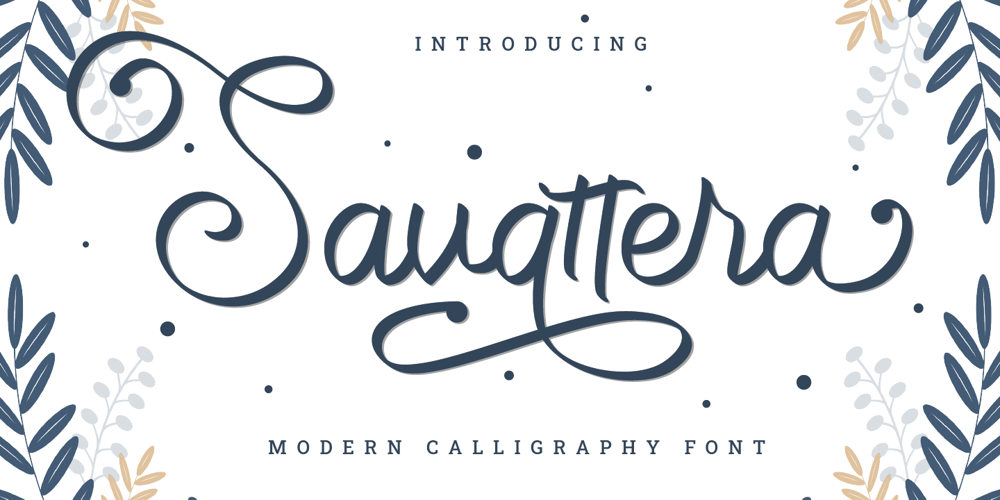
Savattera Font Family was designed by Prio Nurokhim Aji and published by Prioritype. Savattera contains 1 styles and family package options. Introducing a new script font with a beautiful, uniquely elegant and very charming look, you can click it and can be used in your projects such as wedding invitations, quotes, creative posts, clothing product packaging, promotions, video preview images, logos and much more to explore. because it has many cool variations. As a picture you can see the preview above.Features:-Uppercase-Lowercase-Numeral-Punctuation-Multilingual-Alternate-Ligature-SwashThanks.